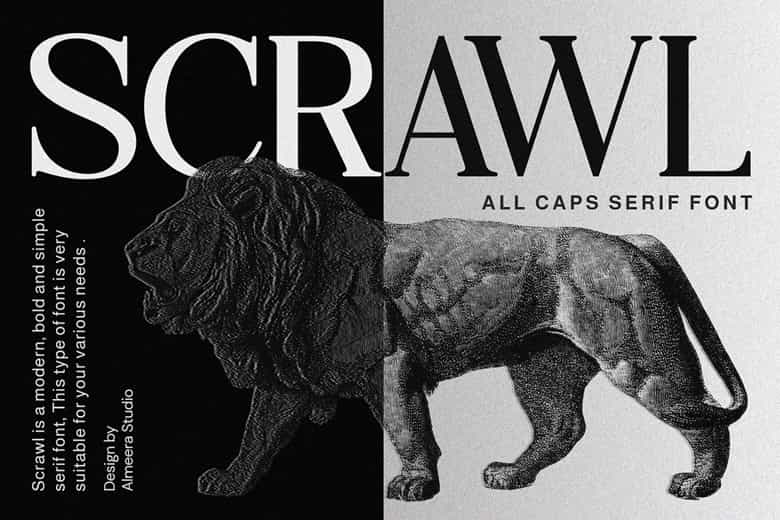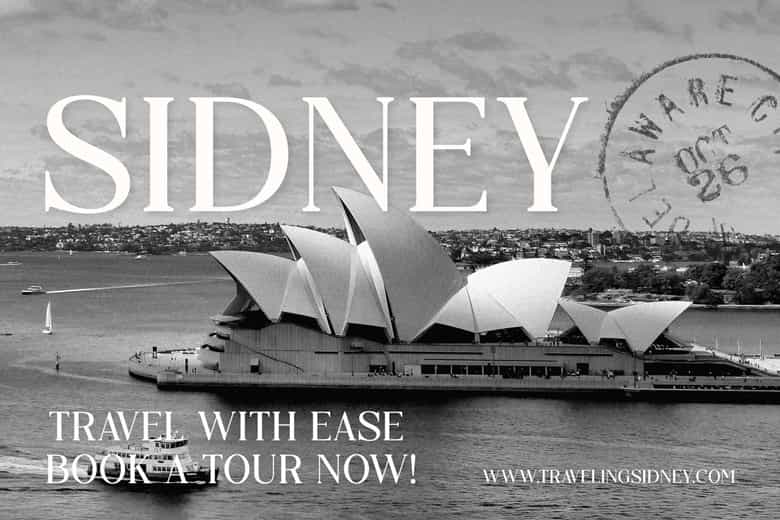
Scrawl is a fancy, elegant and all caps serif font. The font is highly applicable to all your different requirements including branding opportunities, logos, social media, advertisement, labeling, product packaging, photography, wedding design, watermarking, invitation products, stationery and any other requirement.